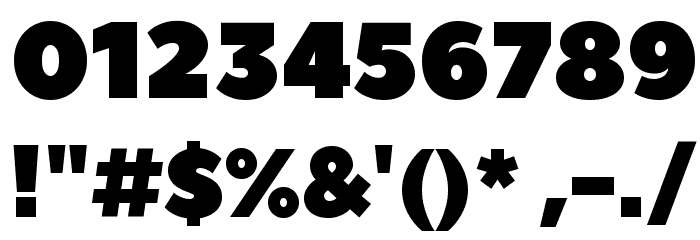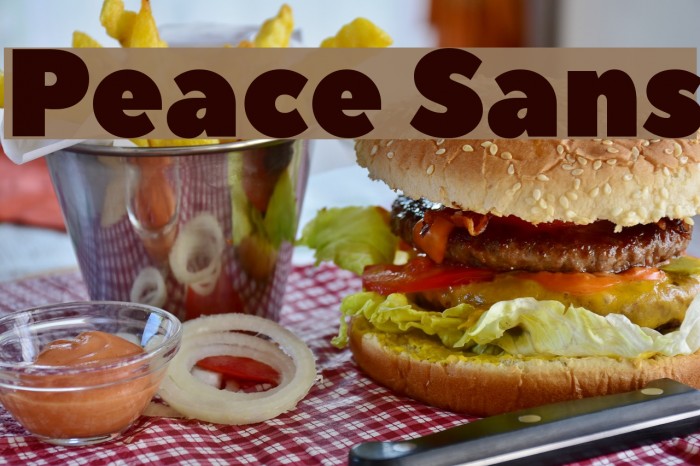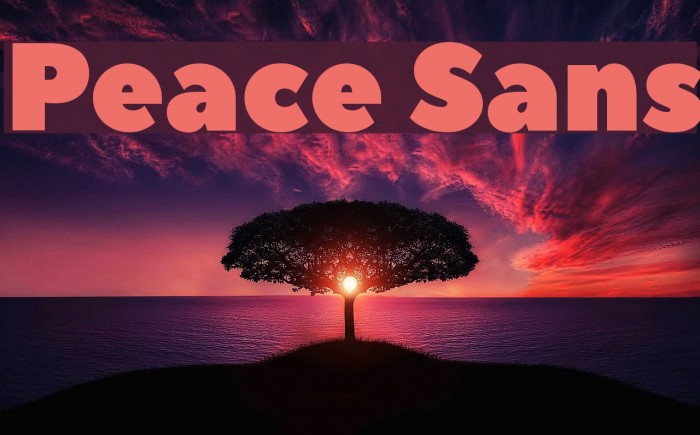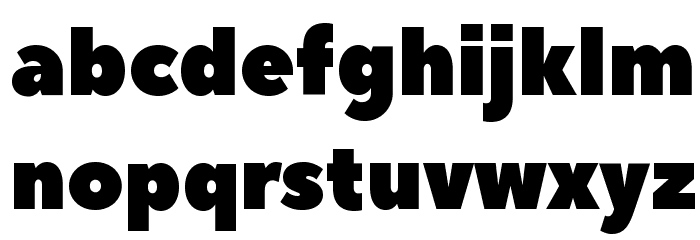
Peace Sans Font
This font features bold, rounded characters with a strong presence, making it ideal for attention-grabbing designs. The uppercase and lowercase letters are consistent in their thickness, providing a uniform appearance. The numbers and special characters maintain the same bold style, ensuring cohesion across all elements. Its simplicity and clarity make it versatile for various applications, while the rounded edges add a touch of friendliness and approachability.
A bold, rounded font with a strong and friendly appearance.
• Proposed Projects: Ideal for branding, headlines, posters, and social media graphics where a bold statement is needed.